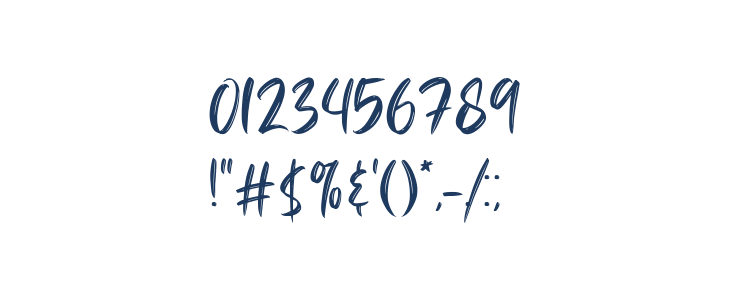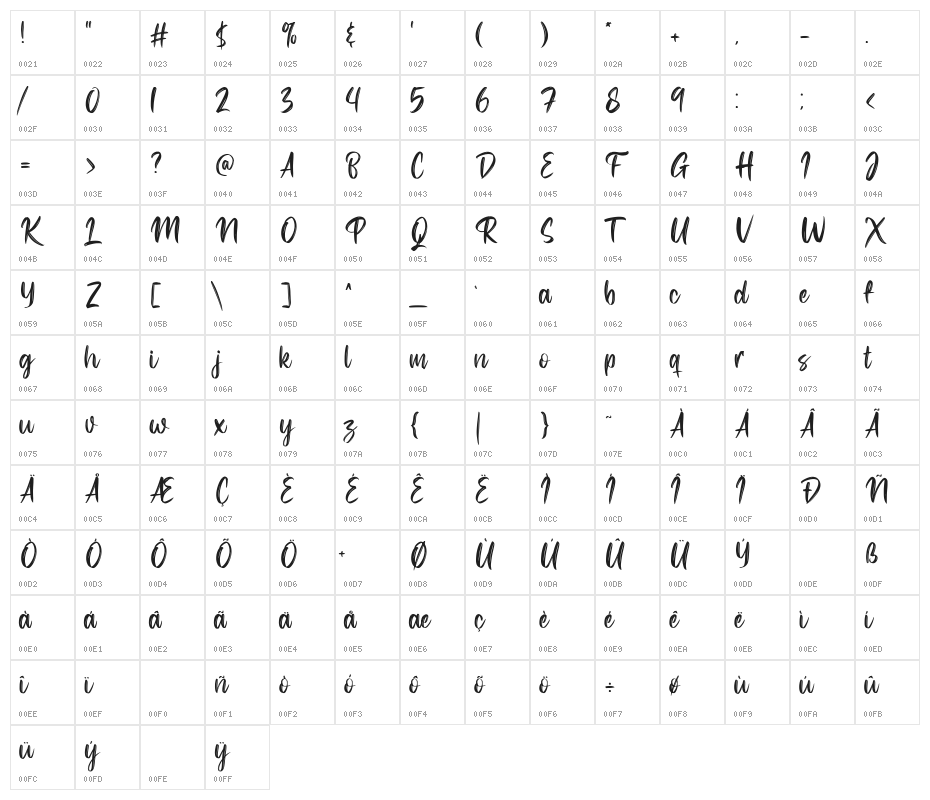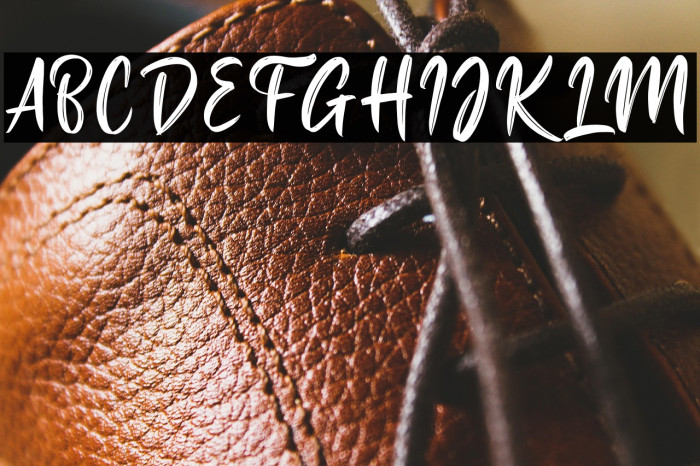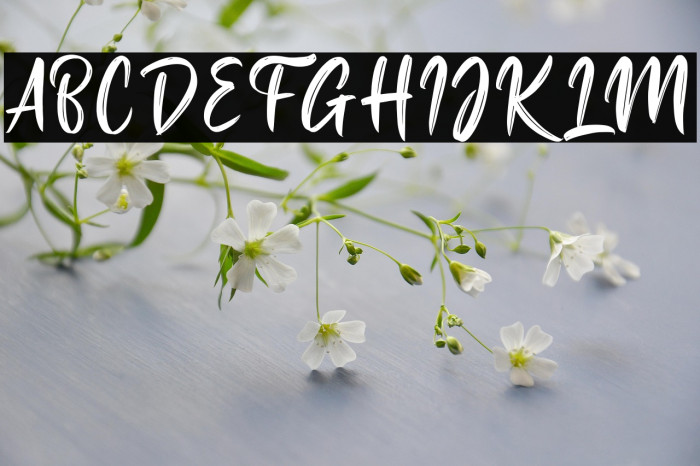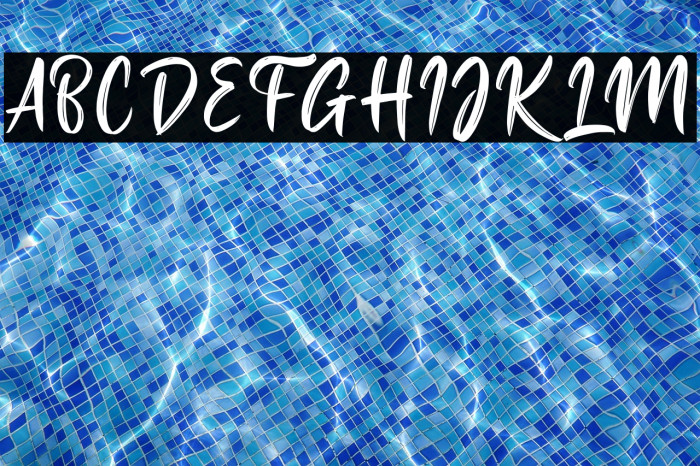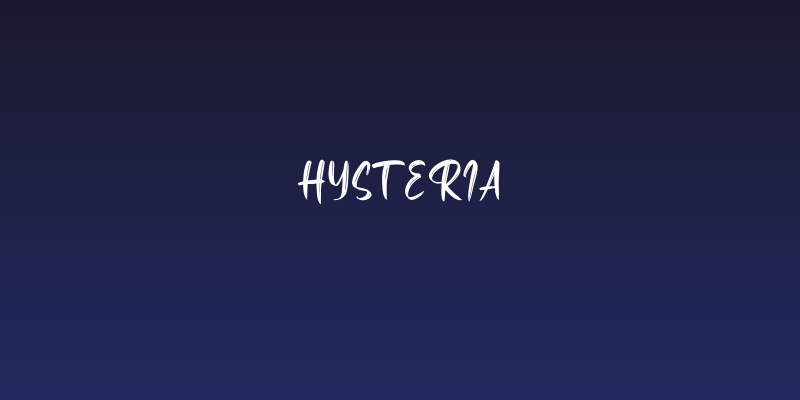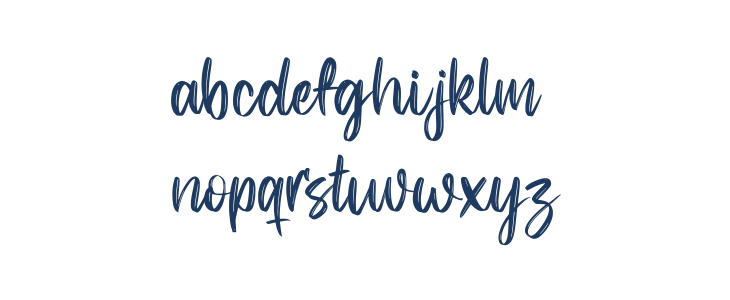
Hysteria Font
Hysteria Description
This font features a dynamic and expressive handwritten style, characterized by its fluid strokes and energetic appearance. The letters are crafted with a sense of movement, giving them a lively and spontaneous feel. The uppercase and lowercase letters maintain a consistent style, with slightly exaggerated curves and loops that add to the font's playful nature. The numerals and special characters are designed to complement the overall aesthetic, ensuring a cohesive look across all elements. This font's unique personality makes it stand out, offering a modern twist on traditional script fonts.